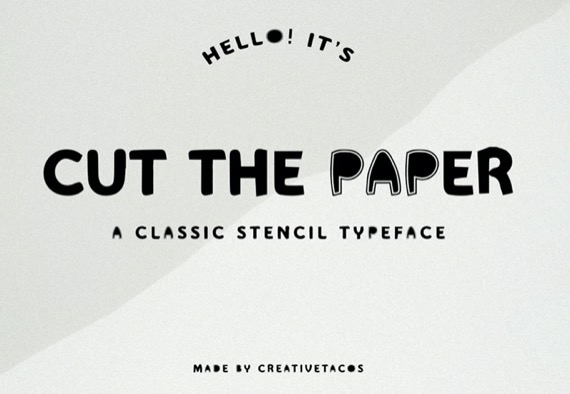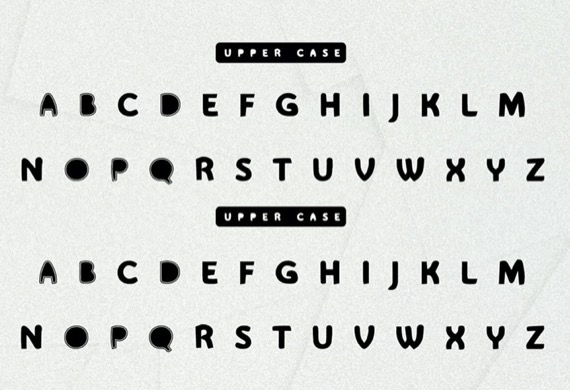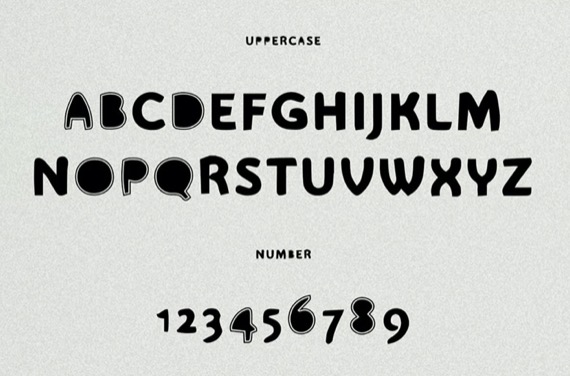
Cut The Paper Font Stencil is a handcrafted display typeface with a unique and modern style that makes it look flexible, natural, and stylish. It was created and released by Creative Finest.
Cut The Paper Stencil Display Font